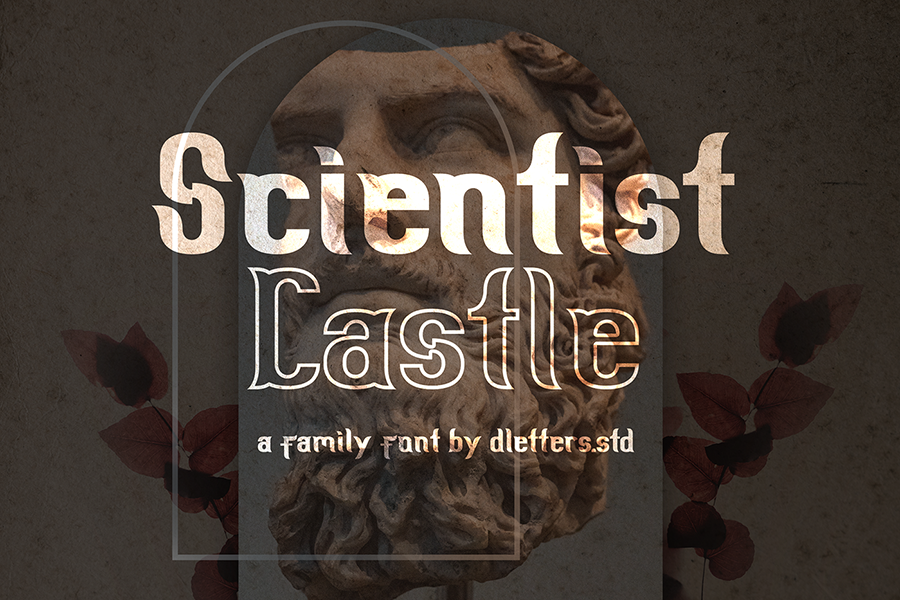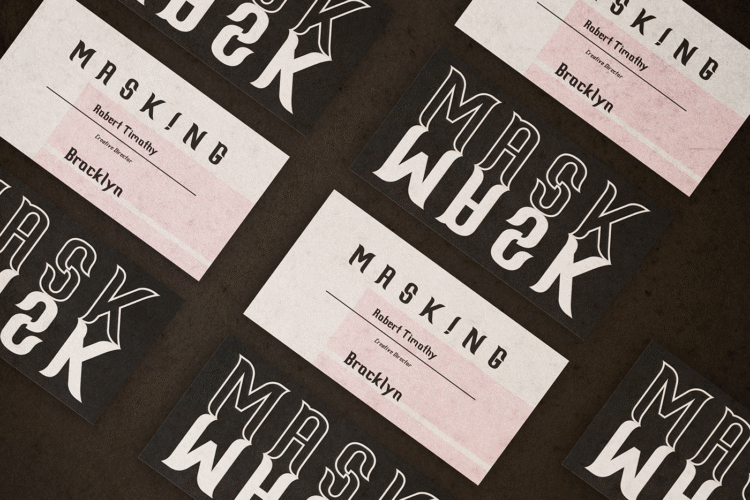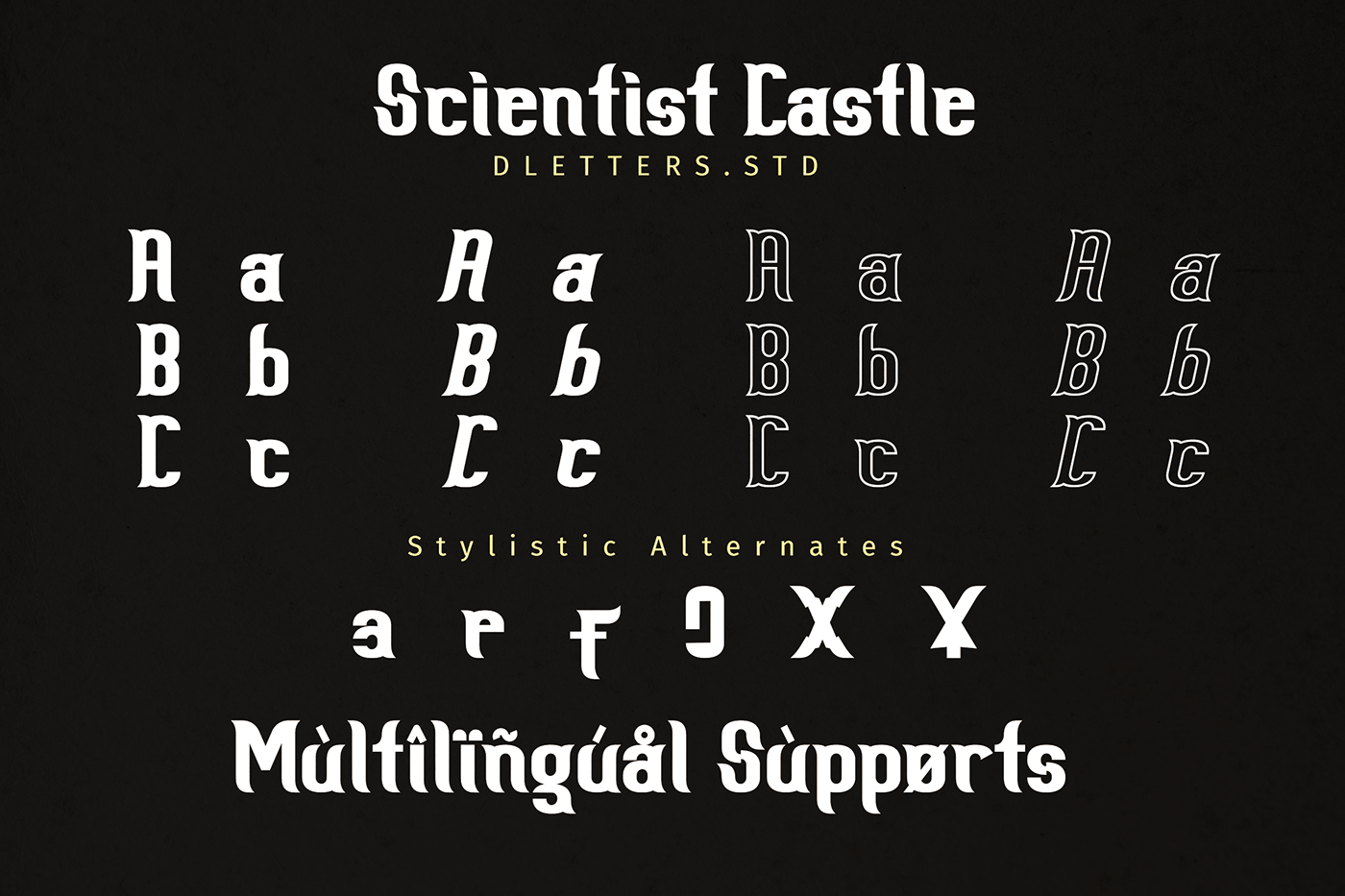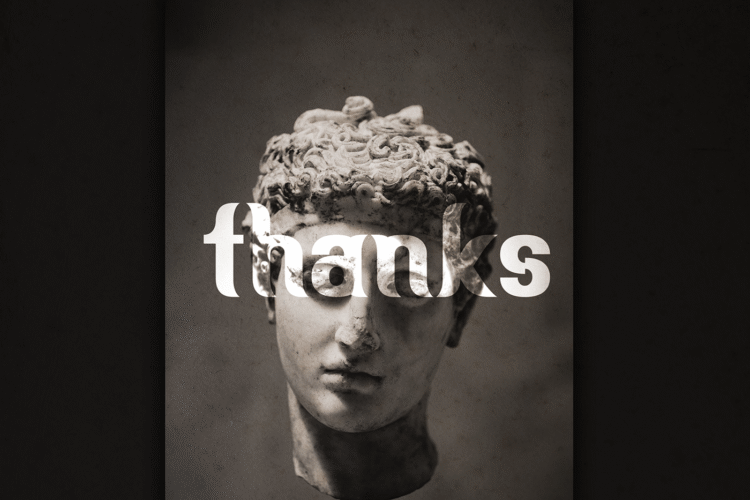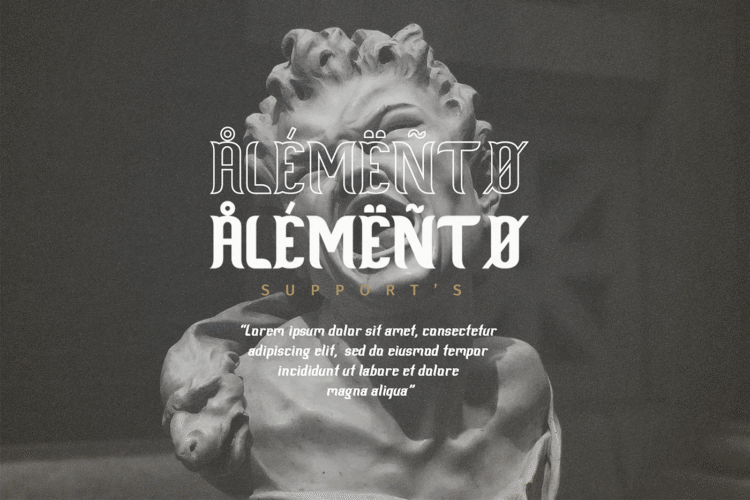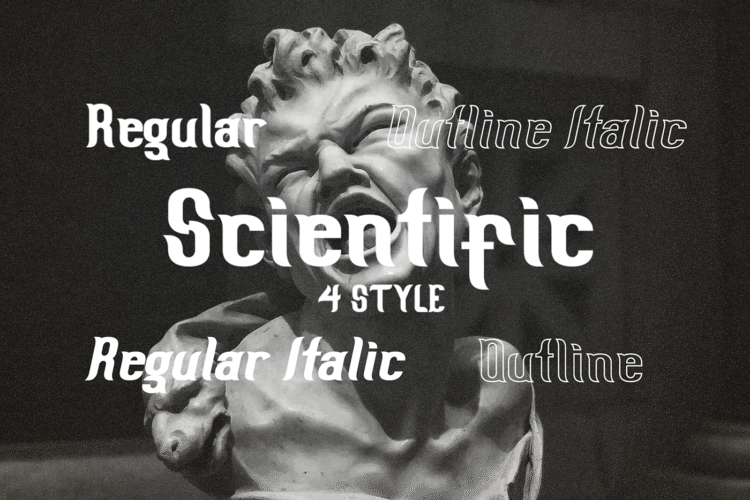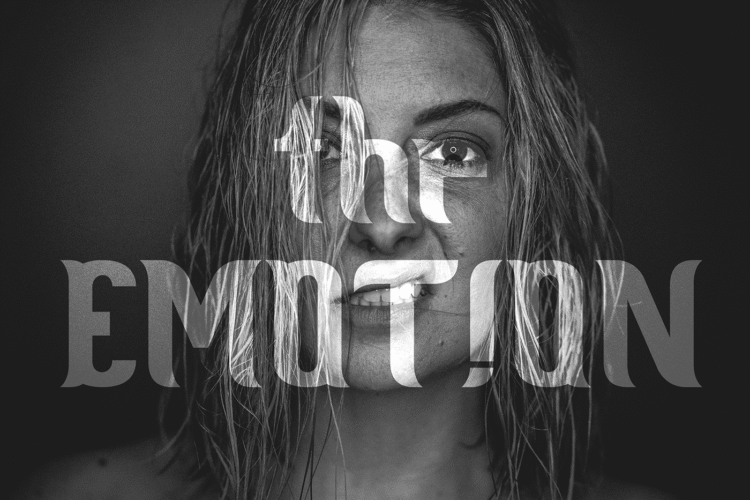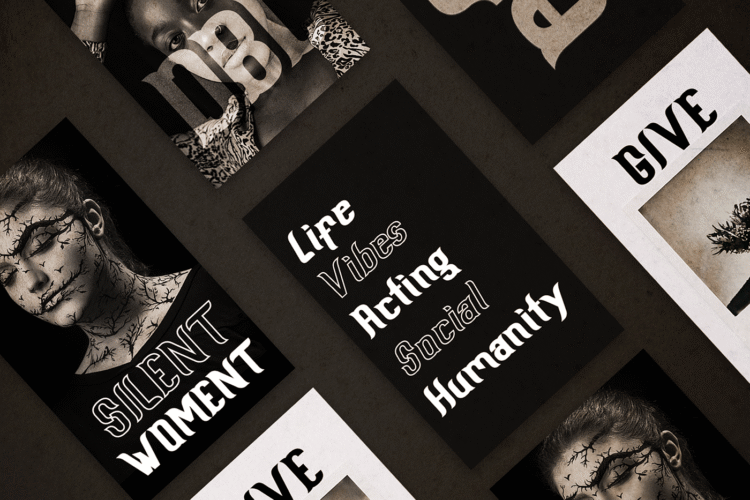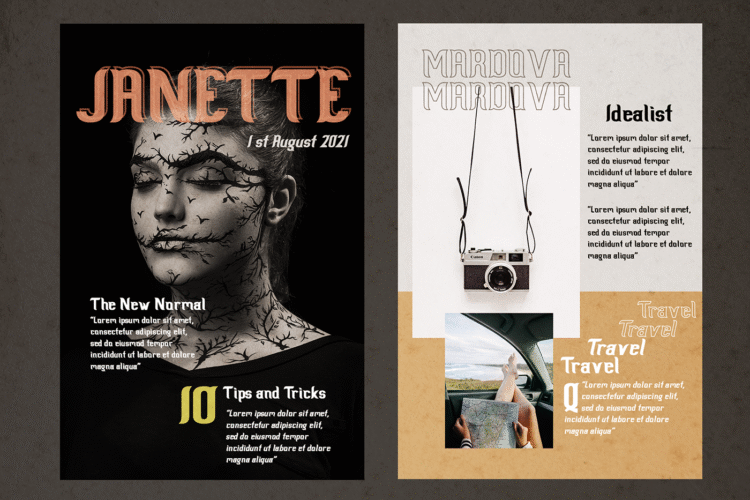
scientist castle family slab serif font
Scientist Castle Family Slab Serif Font Is A Great Font For any project! Available in 4 styles that you can use for various purposes, as a combination of separation according to the design style. Complete with OpenType features, which allow you to give a more calligraphic look! There are regular, Italic, Outline, and Outline Italic styles and very easy to use.
Scientist Castle Family Slab Serif Font is a great choice for Projects you like branding, design, wedding, photography, Magazine, logo designs, album, covers Book, business cards, quotes, and projects other designs.